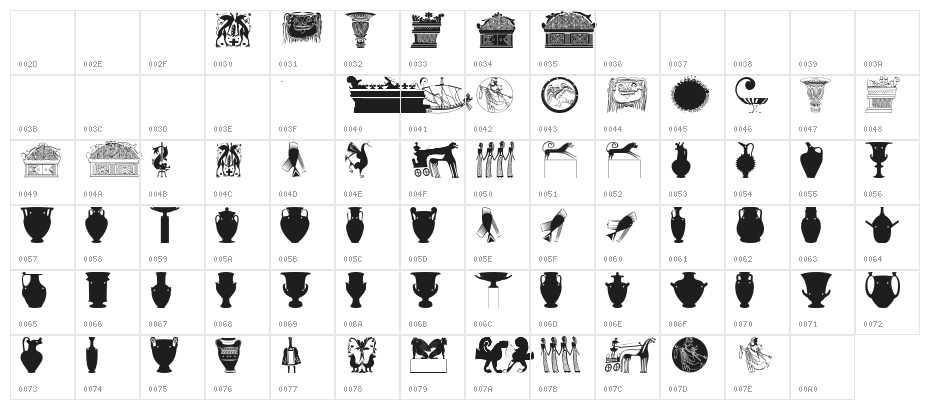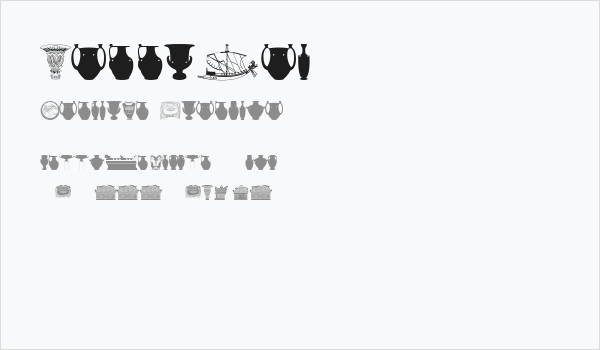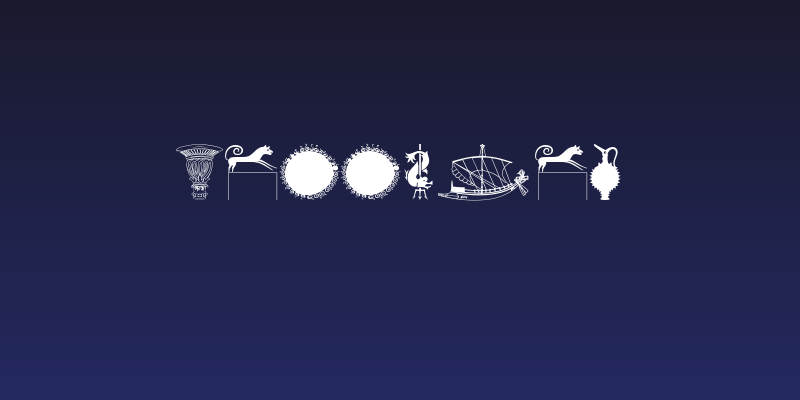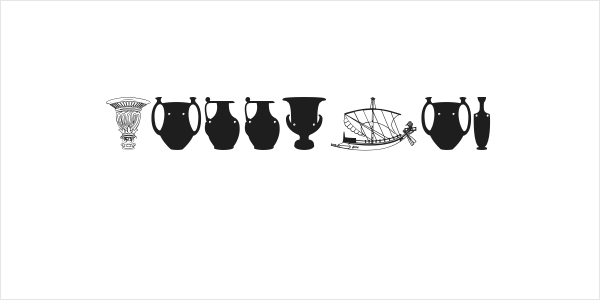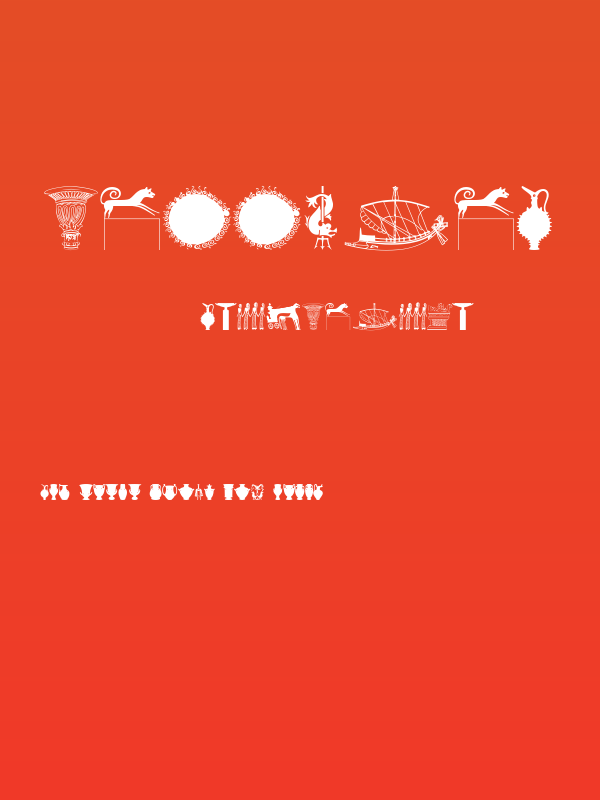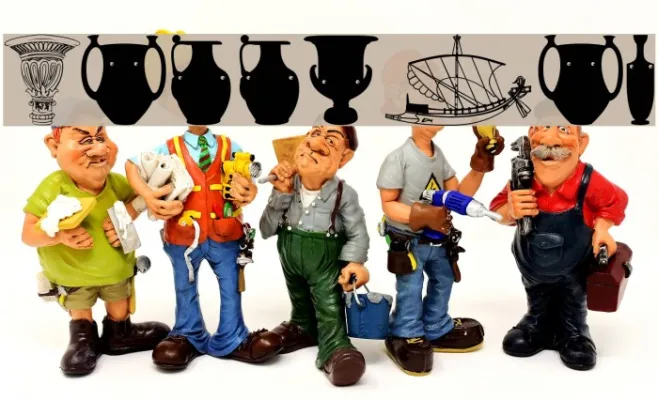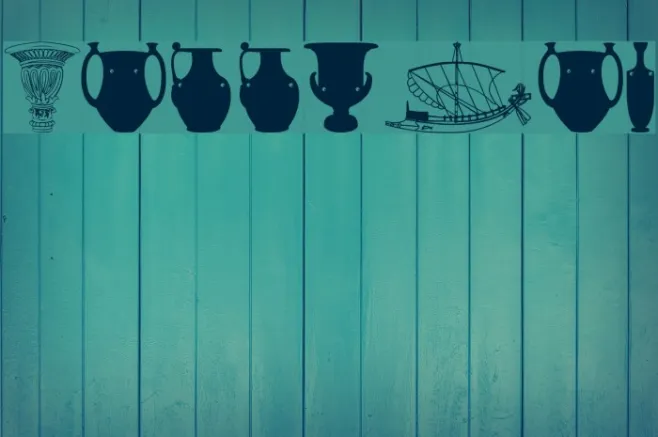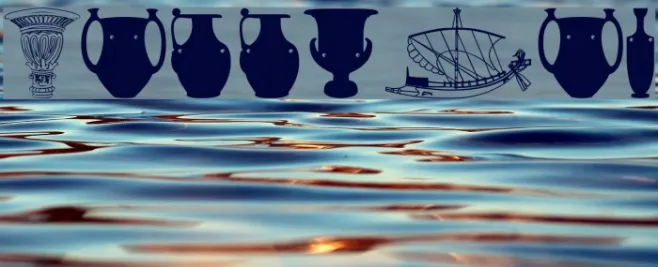
GreekArt Font
GreekArt Description
A decorative dingbat font featuring detailed silhouettes and illustrations inspired by ancient Greek art, including vases, mythological creatures, architectural elements, and classical motifs. The glyphs are highly stylized and ornamental, with strong black fills and intricate line work.
| Overall Style | Decorative, Classical, Thematic |
| Use Case | Logos, Decorative elements, Themed graphics, Borders |
| Proposed Projects | Historical posters, museum brochures, educational materials, themed event invitations, decorative borders, and art projects. |